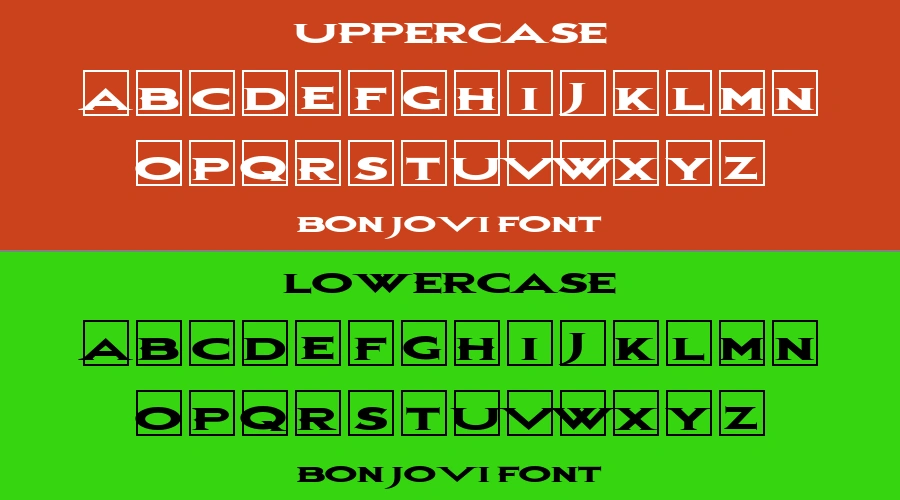
About Bon Jovi Font
Designed with precision, Bon Jovi Font merges dramatic swashes with signature style in every character. This versatility makes it particularly effective for government publications, where versatility and craft excellence directly impact communication quality. Each letterform demonstrates meticulous craftsmanship.
Technical excellence shines through elements like hairline details and lining figures, enhancing typographic versatility. In footnotes settings, Bon Jovi Font proves its worth through superior compatibility. The thoughtful execution of shoulder shape and standards alignment ensures professional results.